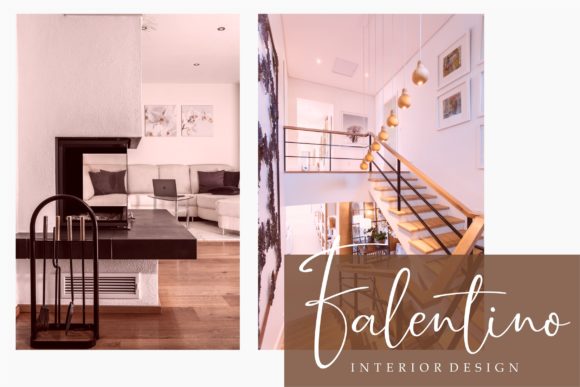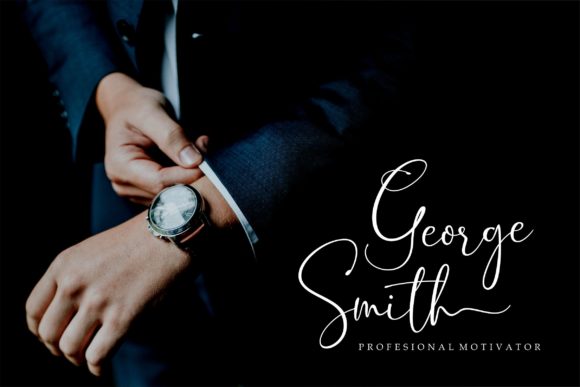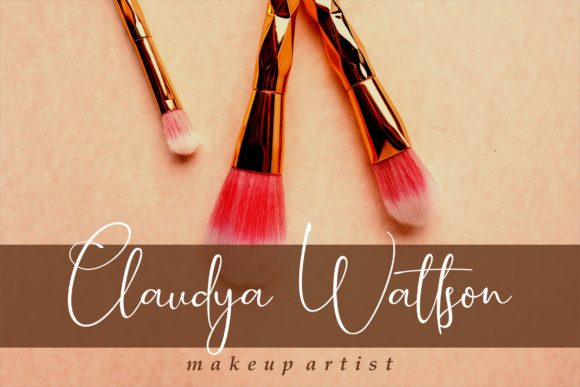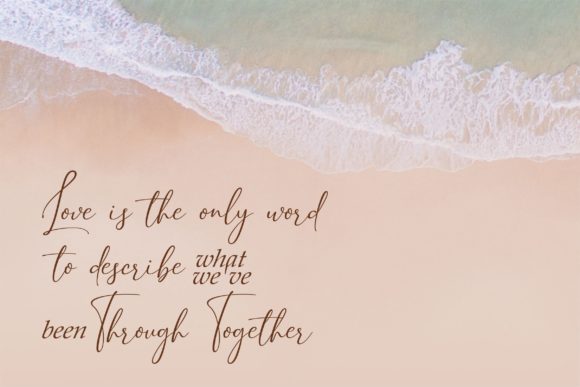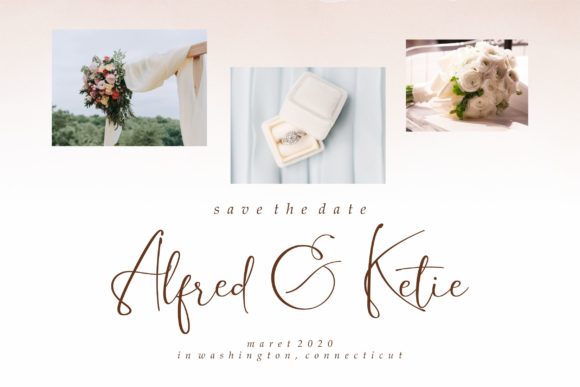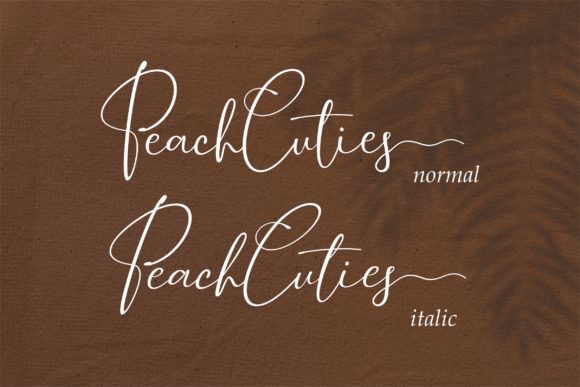
Introduction to Peach Cuties Font
Have you ever been working on a creative project and stumbled upon the perfect font that elevates your entire design? For many designers, that moment is what makes all the hard work worth it. It’s the moment when your design comes alive, and everything just clicks. For me, that moment happened when I discovered the Peach Cuties Font. This beautiful, soft hand-lettered script is a game-changer for any creative project.
With its playful rounded characters and stunning swashes, Peach Cuties Font is the perfect addition to any design resource. Whether you’re working on a high-quality wedding invitation, a beautiful stationery art piece, or an eye-catching social media post, this font is sure to bring a touch of authenticity and elegance to your design.
Peach Cuties Font
- High-quality design resource perfect for creative projects, offering a unique and playful touch.
- Features a transparent background, allowing for easy integration into various design elements.
- Includes a range of sizes, from 48px to 192px, to suit different design requirements.
- Designed with a resolution of 300 DPI, ensuring crisp and clear text even at larger sizes.
- Unique characteristics include a cursive script and whimsical illustrations, making it ideal for children’s books, greeting cards, and other creative projects.
Honest Review: Peach Cuties Font
I recently stumbled upon the Peach Cuties Font and I must say it’s a lovely addition to any designer’s toolkit. This free download is perfect for creative projects that require a high-quality, feminine touch.
Here are some things that work well with the Peach Cuties Font:
- ✨ Unique design: The font has a distinctive look that sets it apart from more generic sans-serif fonts.
- ✨ Versatile: Peach Cuties Font can be used for a variety of projects, from logos to product labels.
- ✨ Transparent background: The font’s transparent background makes it easy to use with custom backgrounds or overlays.
- ⚠️ Limited character set: The font only includes a limited set of characters, which may not be suitable for longer texts or complex designs.
- ⚠️ Not suitable for bold text: The font is best used for smaller text sizes, as it can become difficult to read when enlarged.
Overall, I think the Peach Cuties Font is a great addition to any design resource library. While it has some limitations, its unique design and versatility make it a valuable asset for any creative project.
Tips for Getting the Most Out of Peach Cuties Font
Use the Peach Cuties Font in conjunction with a transparent background to create a high-quality design resource for your creative project. Experiment with different font sizes and colors to achieve the desired effect.
The Peach Cuties Font is ideal for designing invitations, greeting cards, and other creative projects that require a playful and whimsical touch. You can also use it for branding and marketing materials, such as logos and business cards.